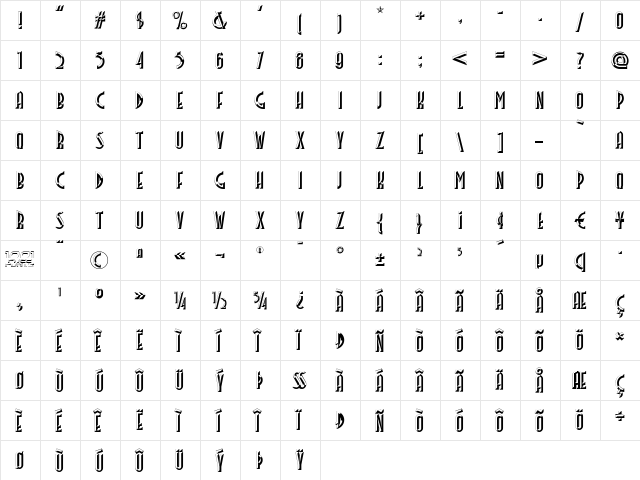
Facets NF Regular Font Preview
Facets NF Regular
Facets NF Regular Font Details
Design Context for Facets NF Typeface
Facets NF is a composed and adaptable typeface that performs quietly and consistently across a wide range of design contexts.